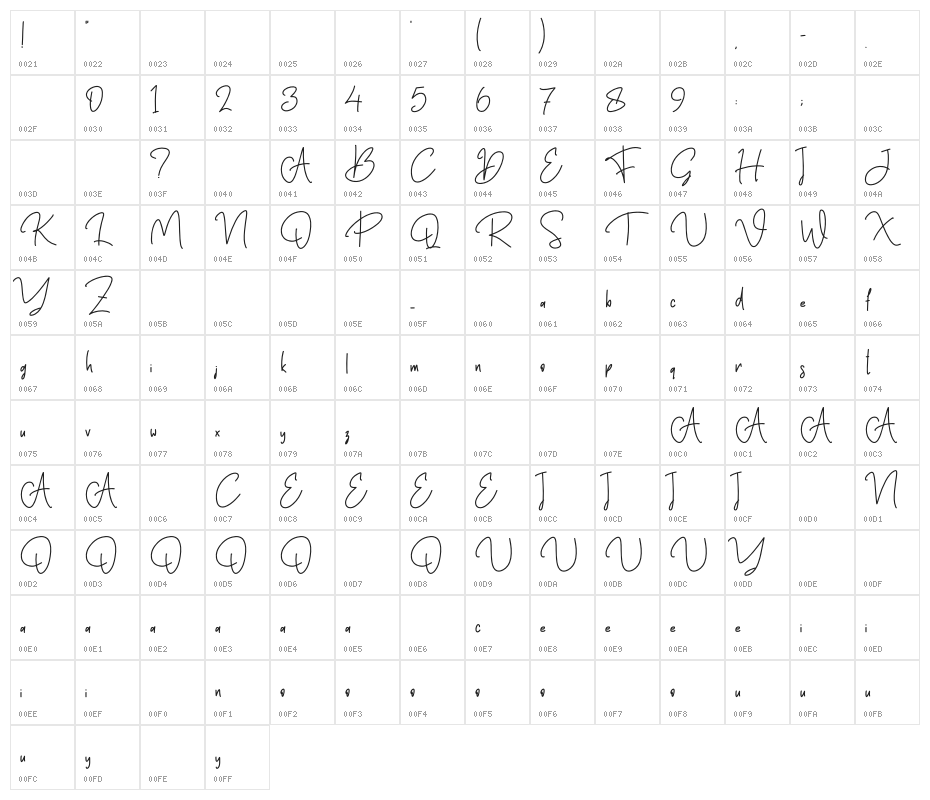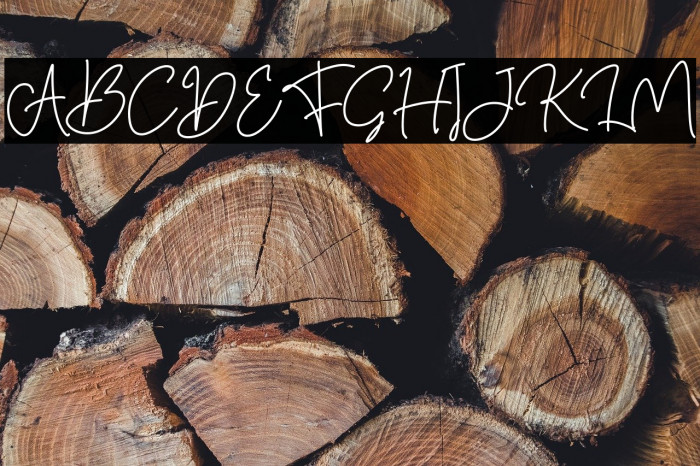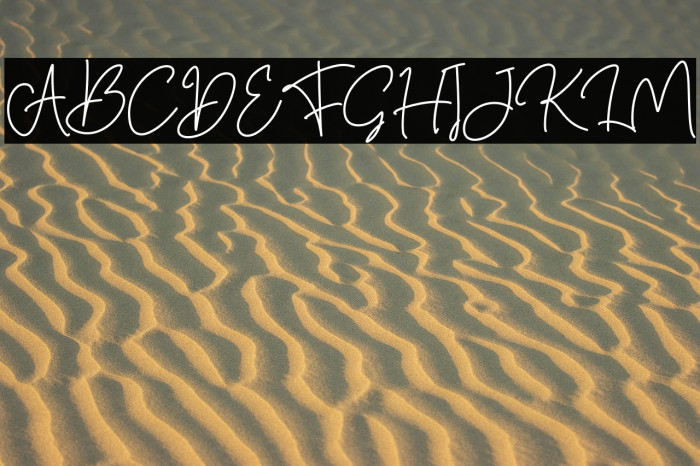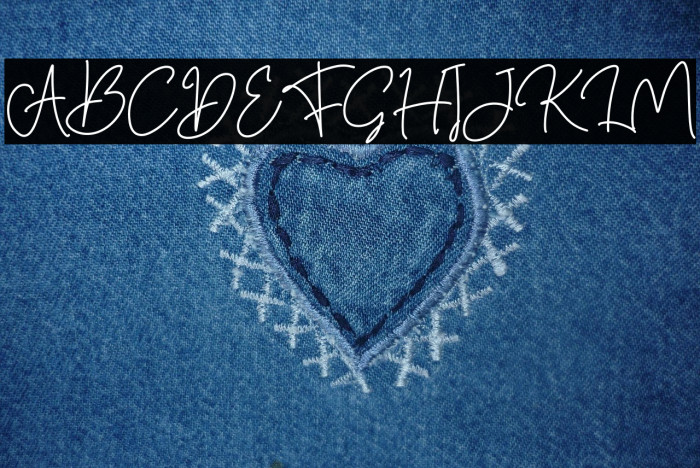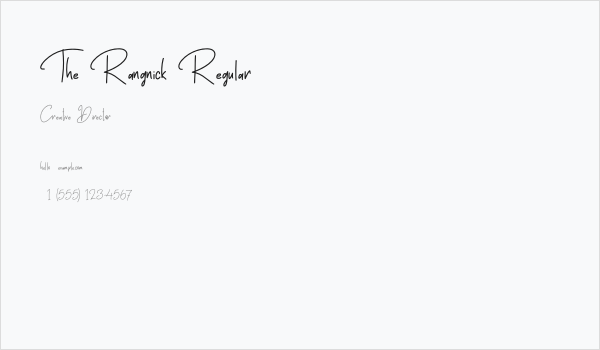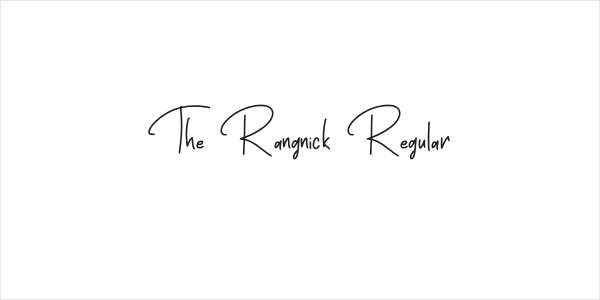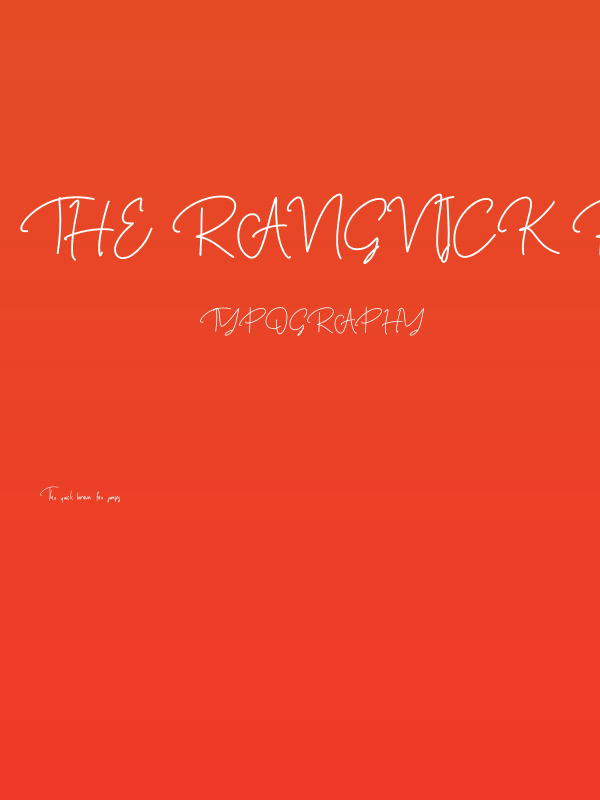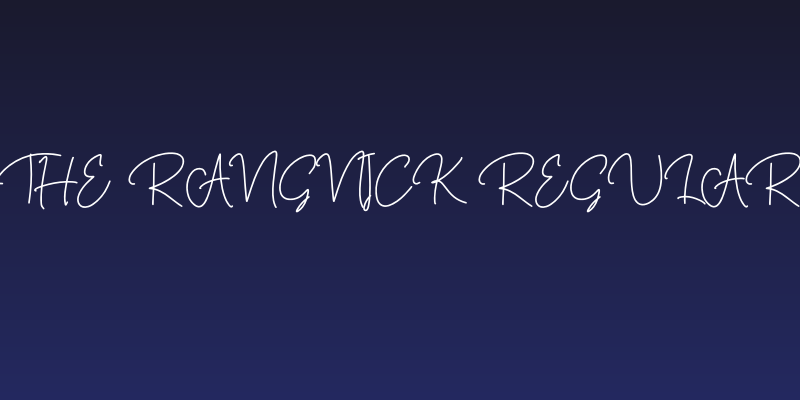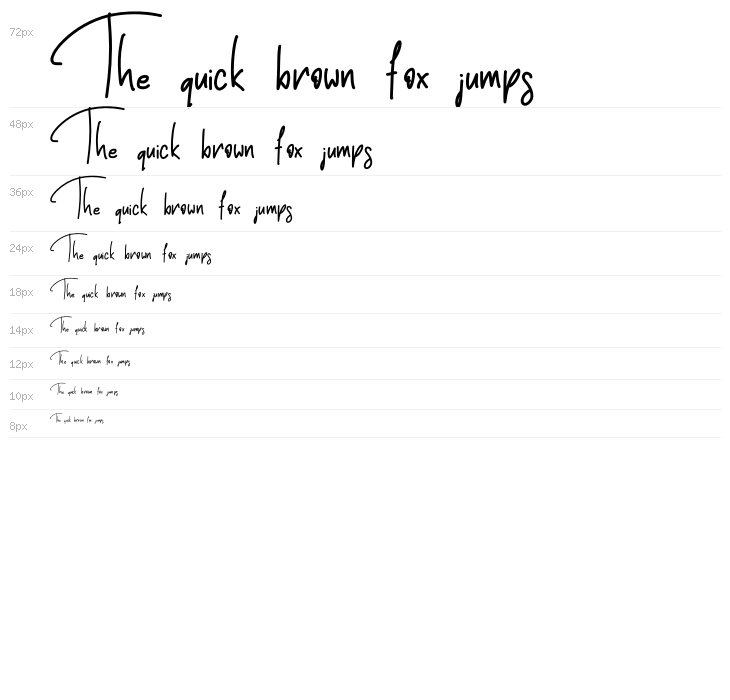
The Rangnick Regular Font
The Rangnick Regular Description
A playful and casual handwritten font with a flowing, cursive style. The characters are slightly irregular, giving it a personal and informal touch.
| Use Case | Logos, Invitations, Personal projects |
| Proposed Projects | Greeting cards, invitations, personal branding. |